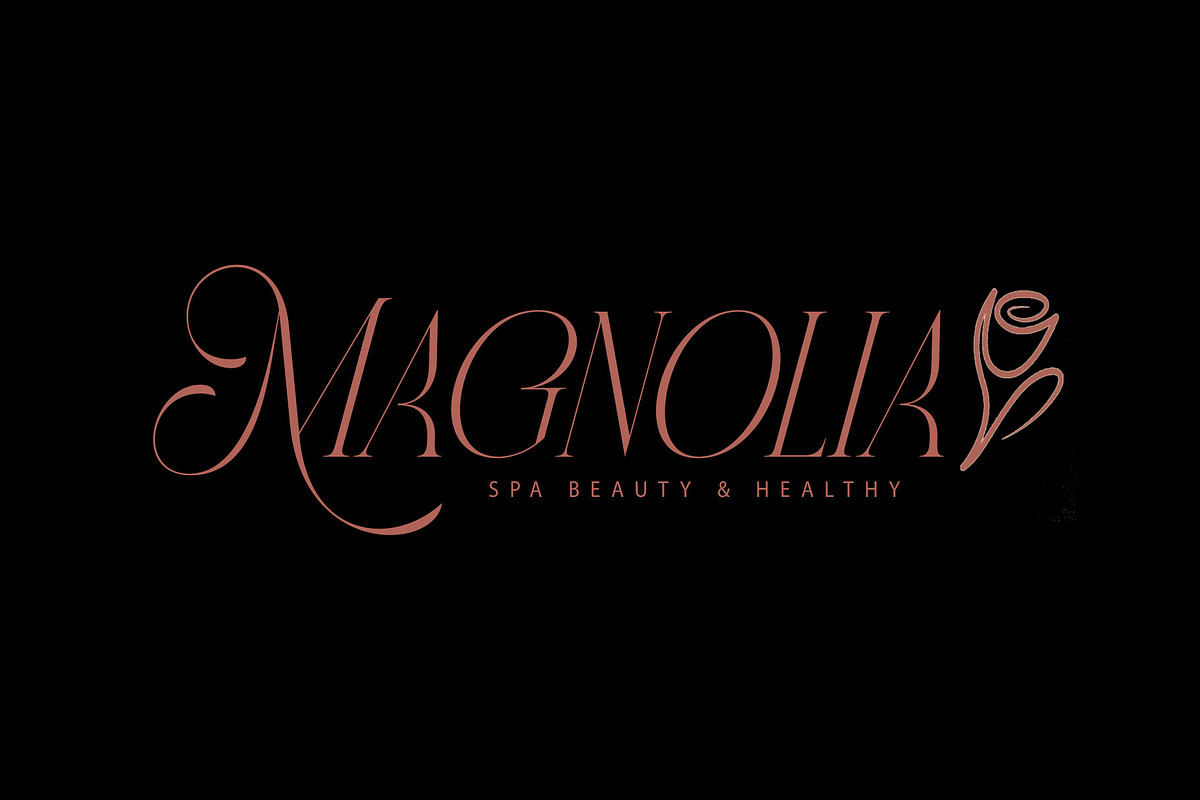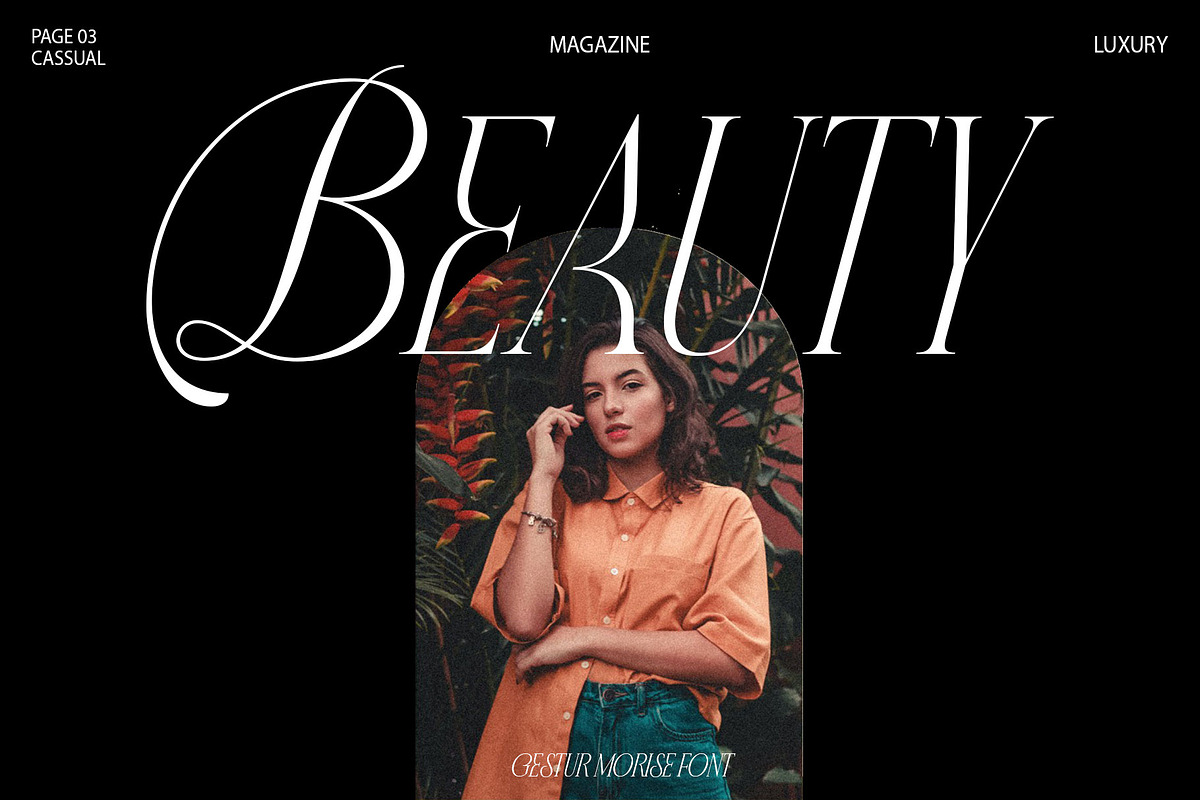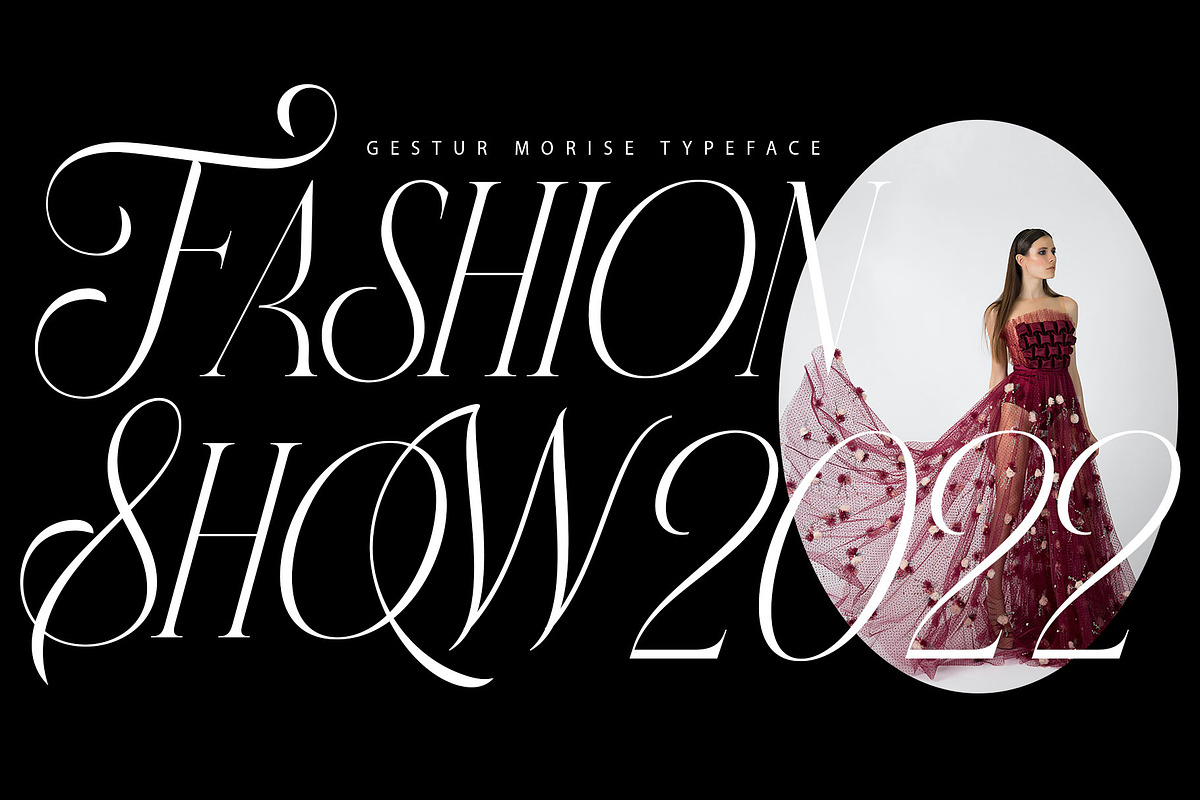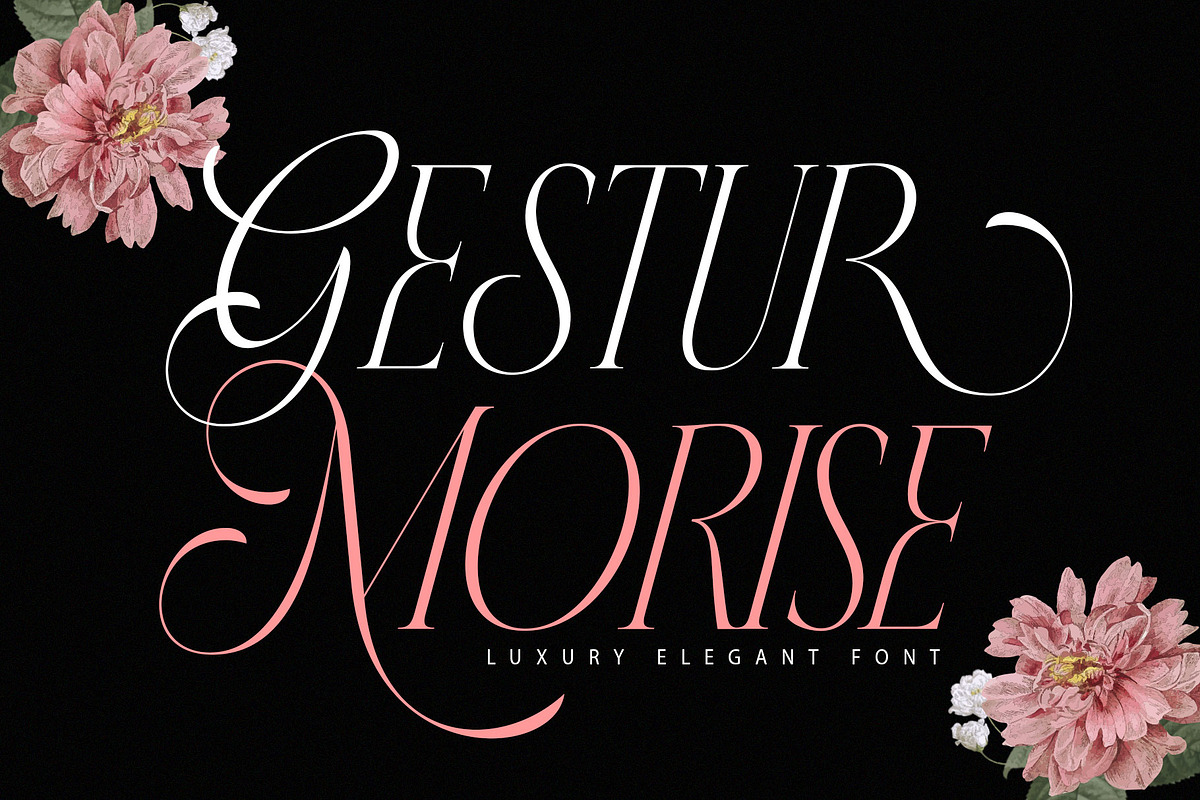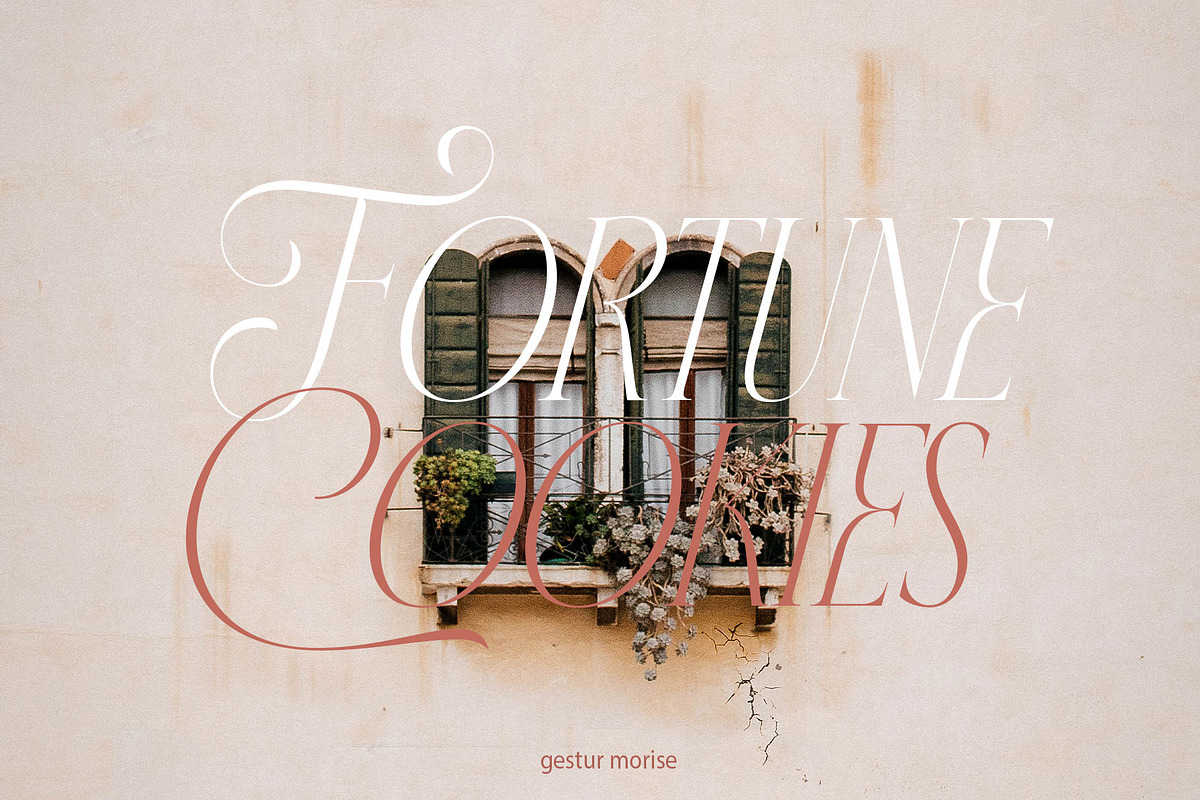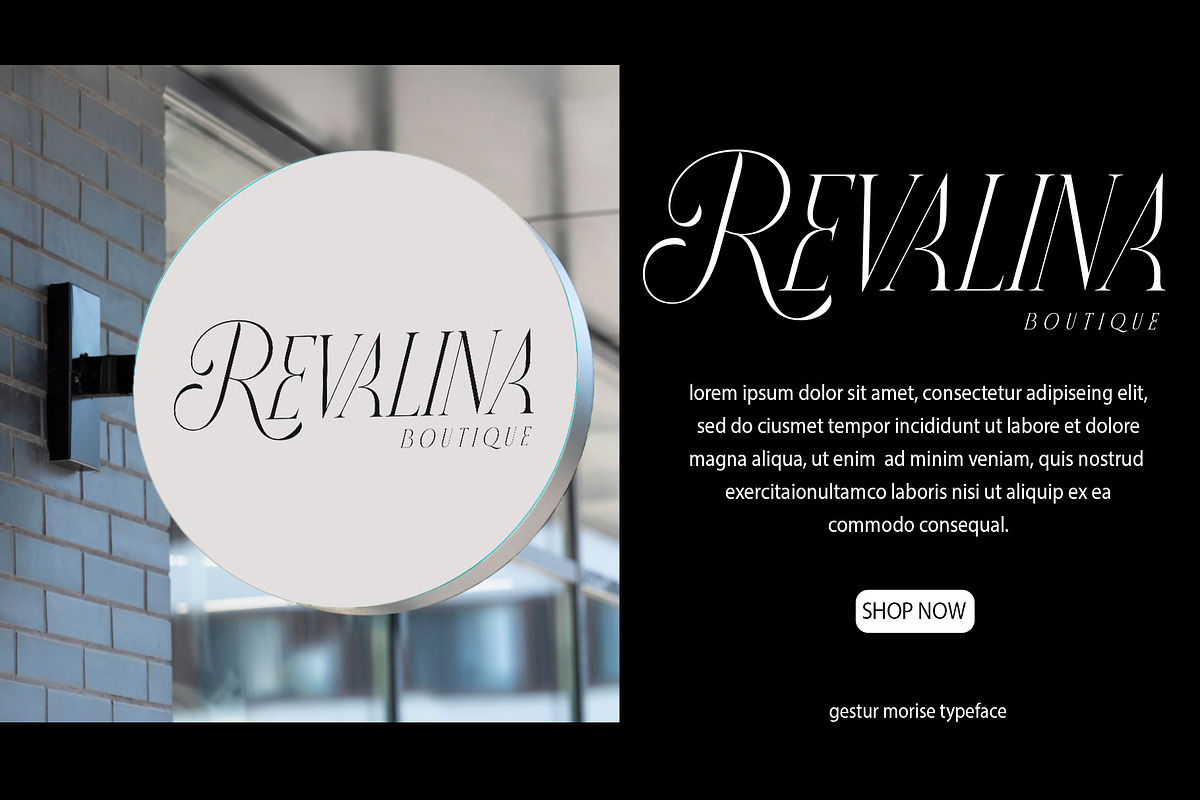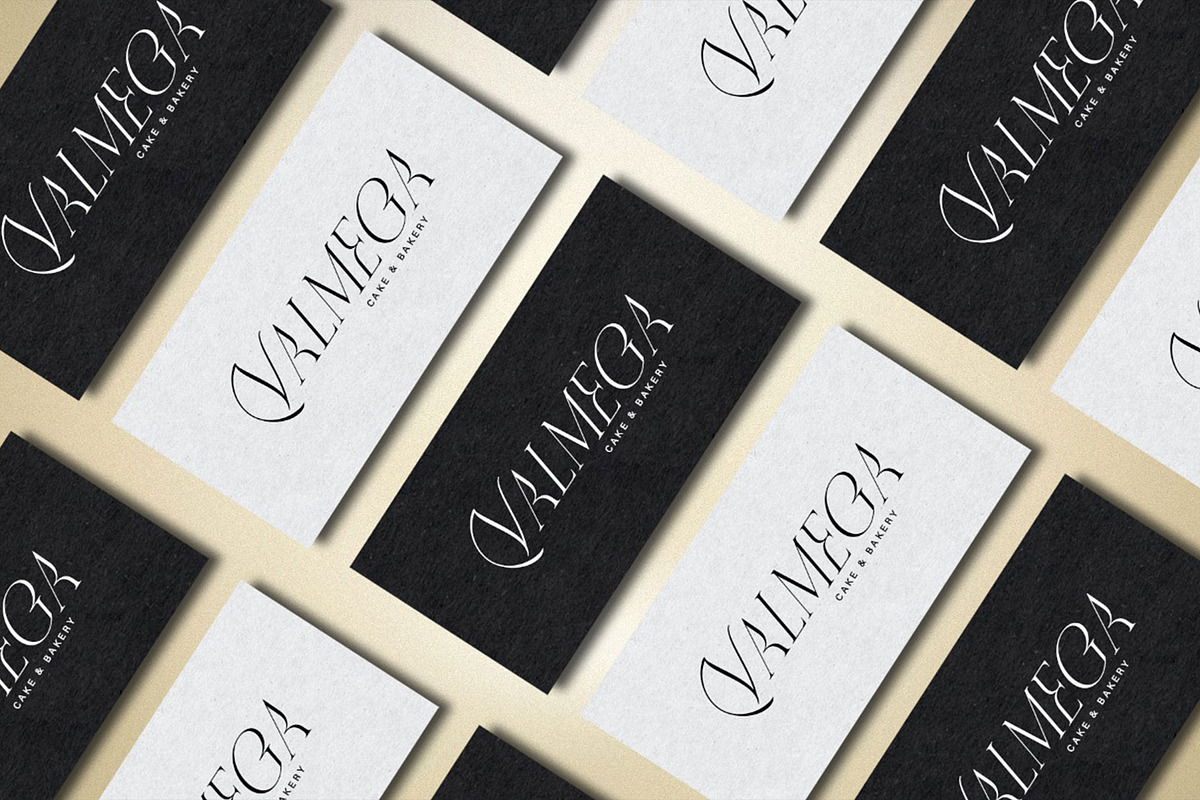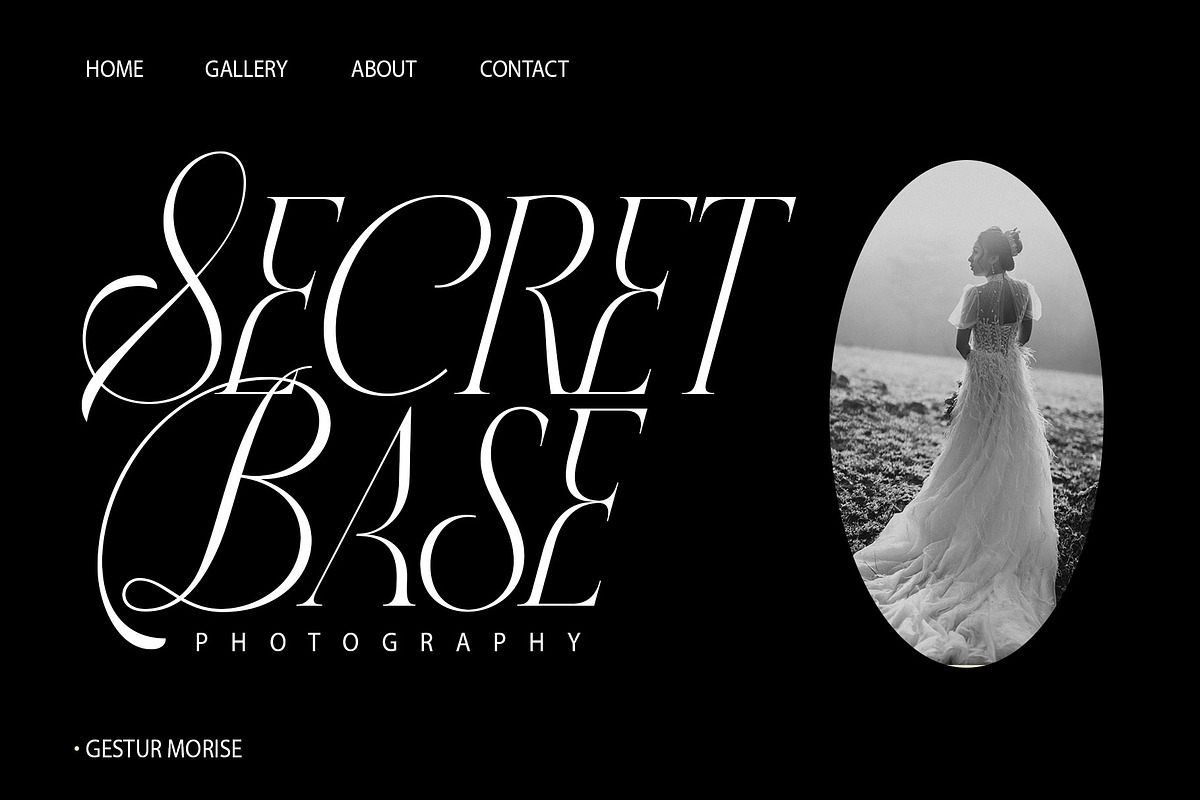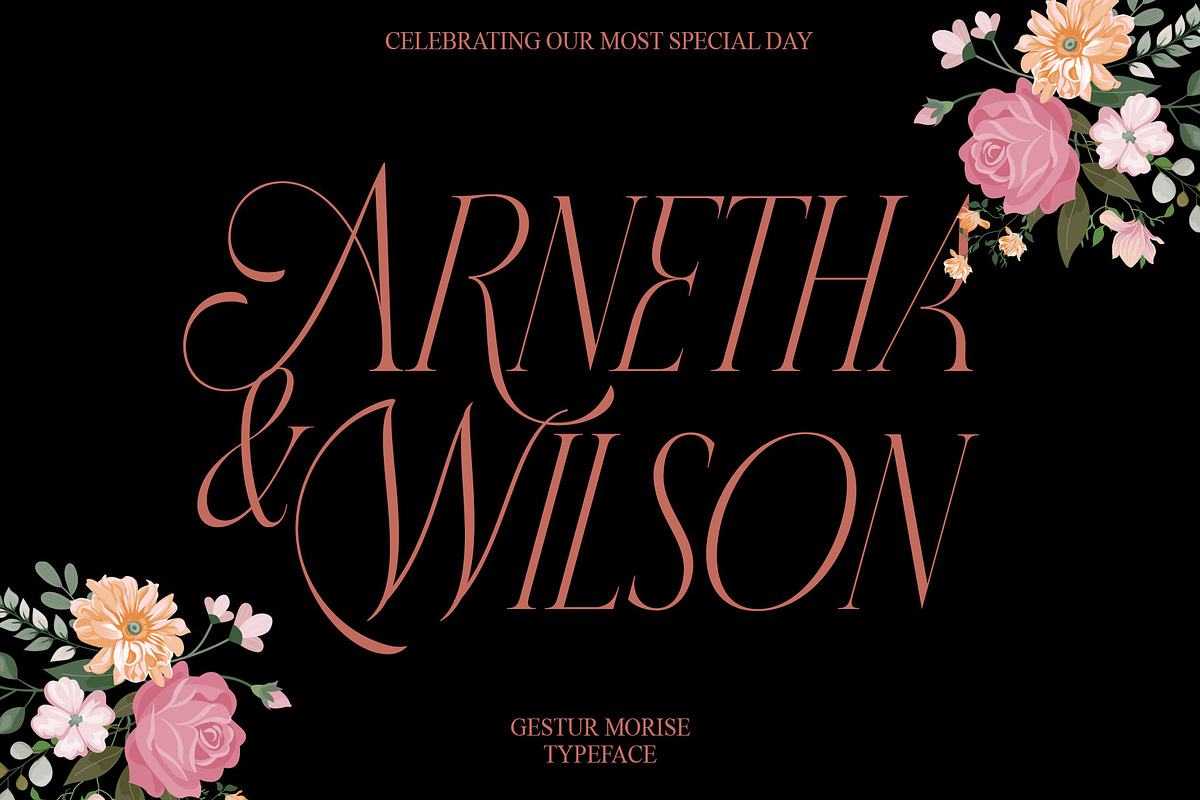
Gestur Morise
Gesture Morise is a fancy font with a lot of ties to it. with great detail. This font is perfect for your work to make it look elegant and luxurious.